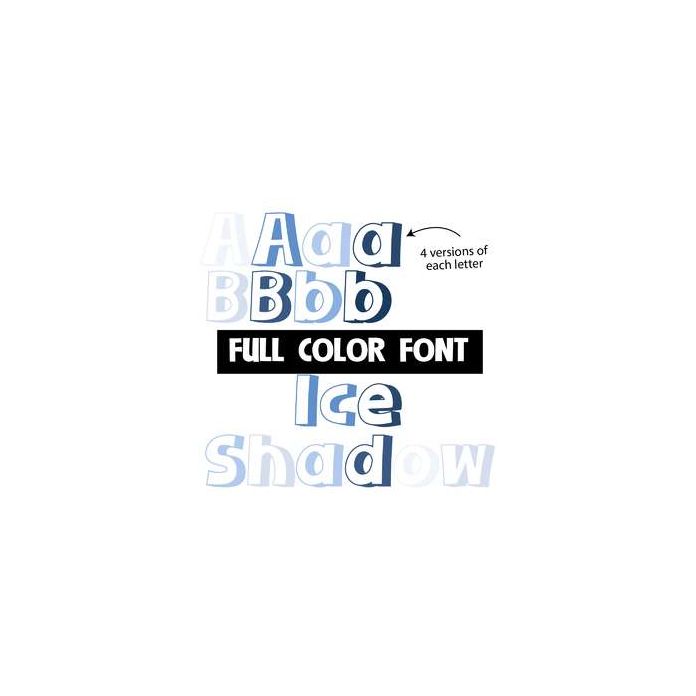
This full-color font features white 3d letters with cold-colored shadows. There is an upper and lowercase alt case you can access through your system's character map. This font works best for titles, displays, posters and more. Please note color fonts will show as black in non compatible programs. This font type is compatible with Silhouette Studio.